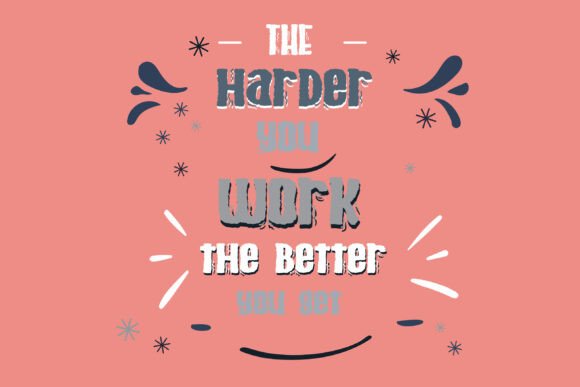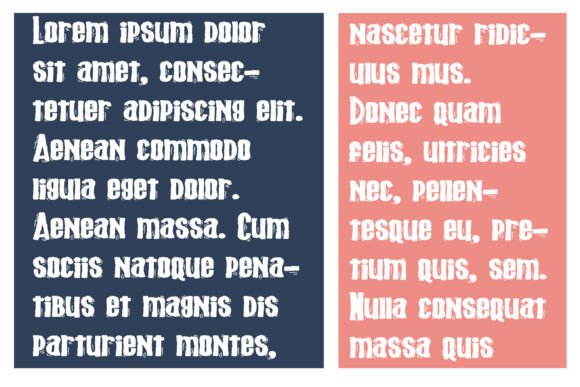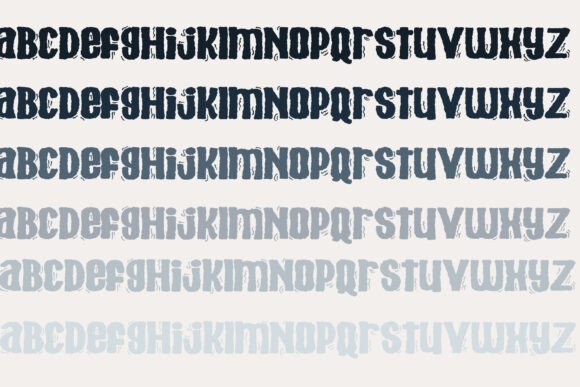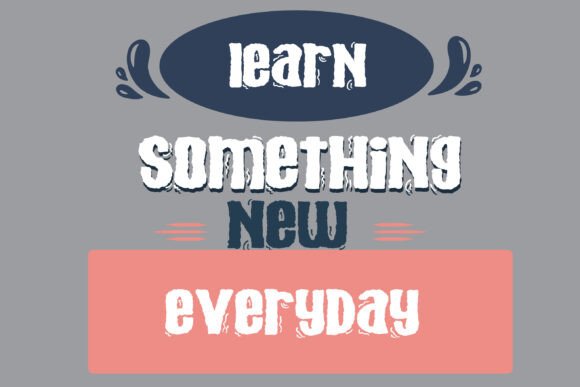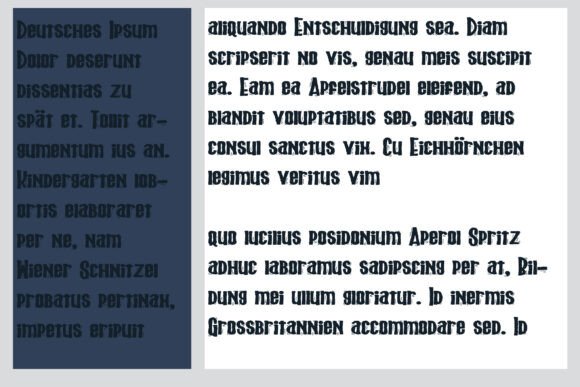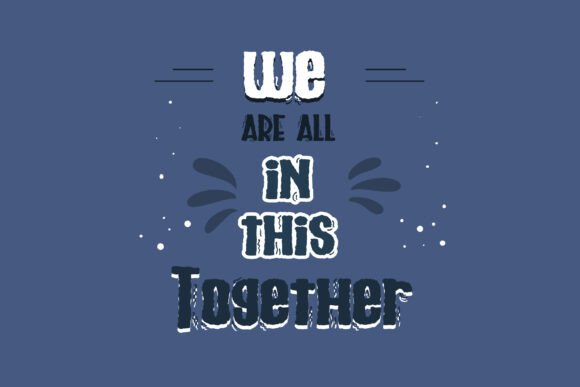
Introduction to Nincaberry Scary Font
This hand-crafted, squat, sans serif is shaking in fright.
A hand-crafted font is a font that is designed to look like it was written by hand It is often used for invitations, greeting cards, and other items.
Key Features of Nincaberry Scary Font
Why Choose Nincaberry Scary Font?
Nincaberry Scary Font offers exceptional quality and versatility, making it a valuable addition to your design toolkit. Whether you’re creating for personal projects or commercial use, Nincaberry Scary Font delivers professional results.